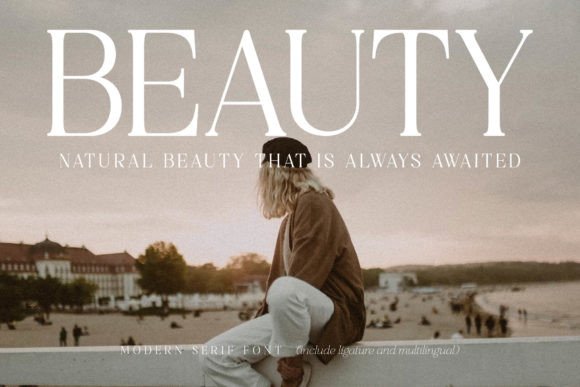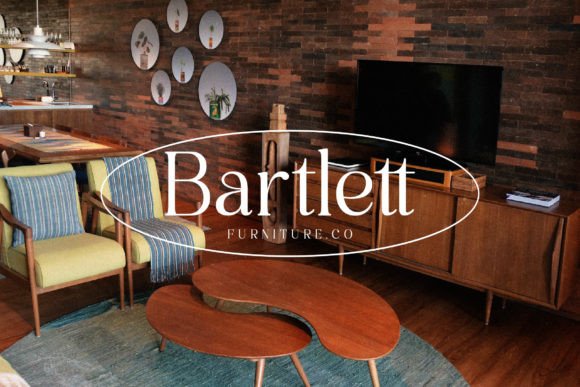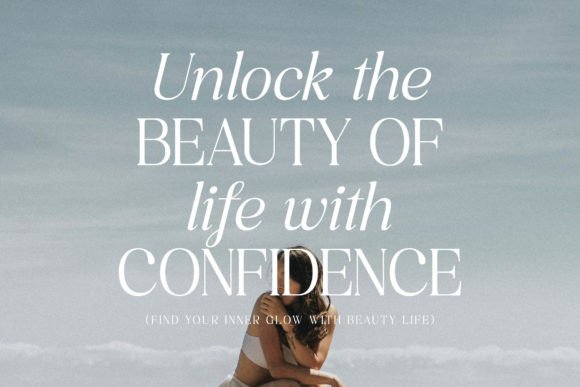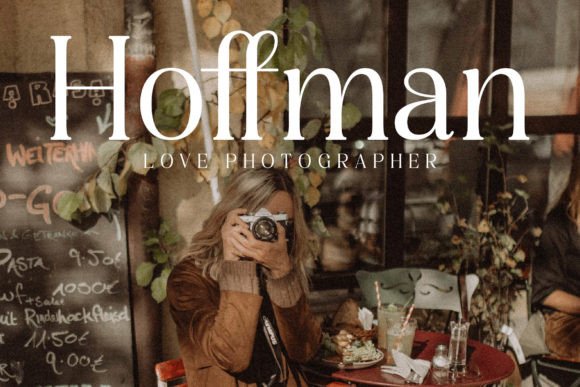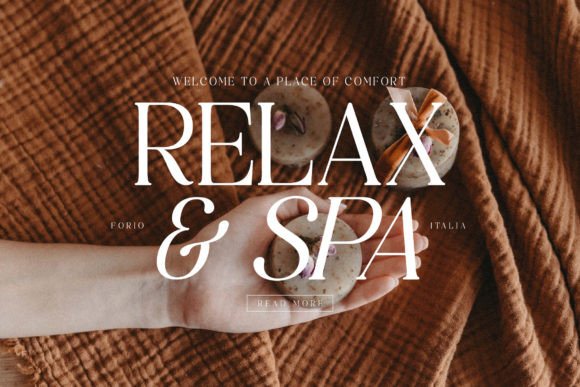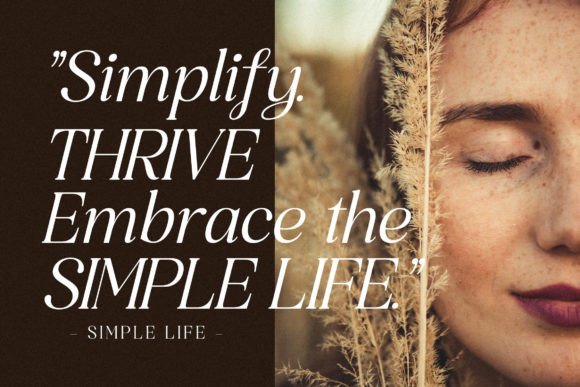
Introduction to Simple Michael Font
Proudly present Simple Michael Typeface.
A serif modern and classic typeface that has its own unique style & modern look This typeface is perfect for an elegant & luxury logo, book or movie title design, fashion brand, magazine, clothes, lettering, quotes, and so much more.